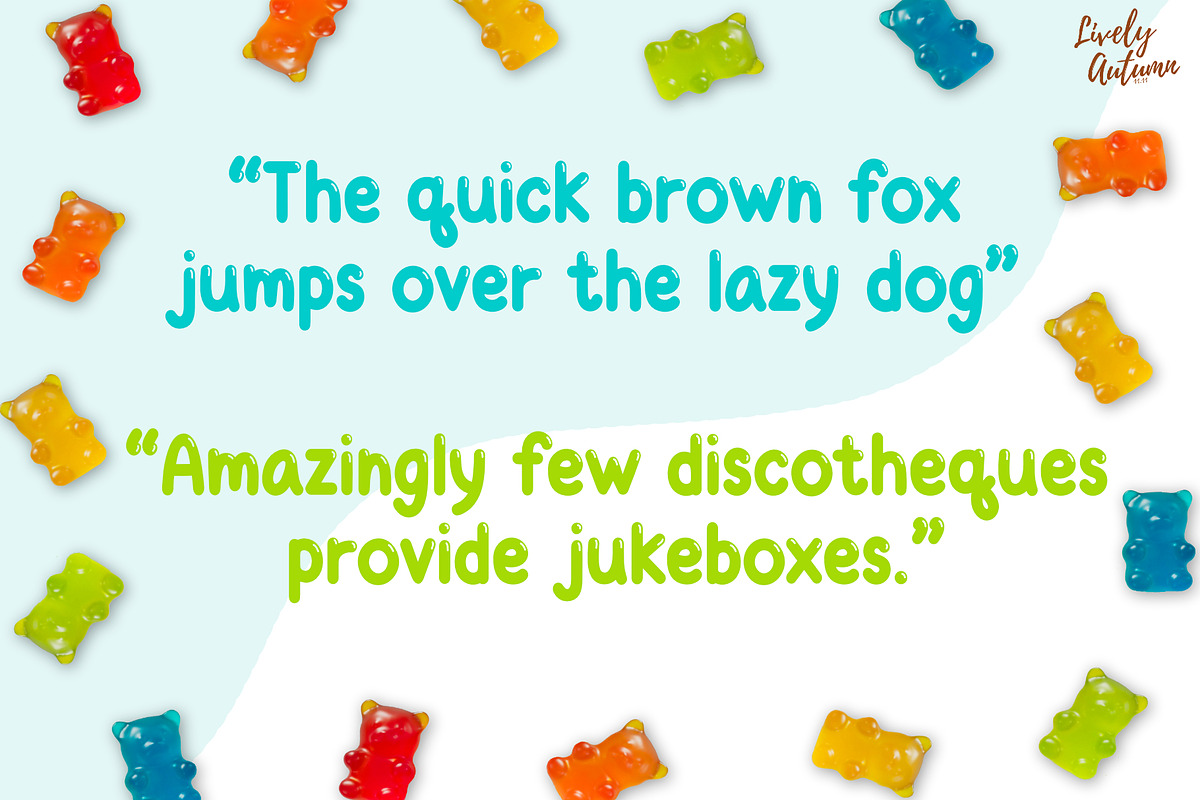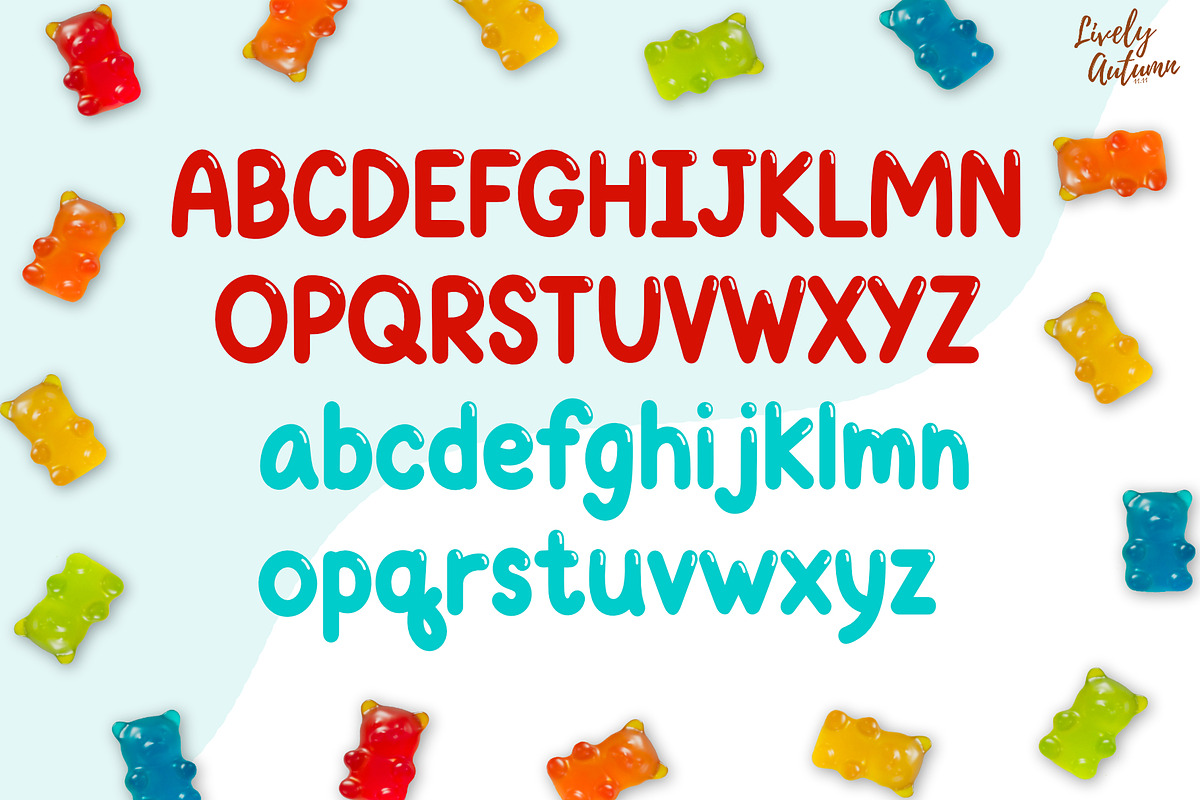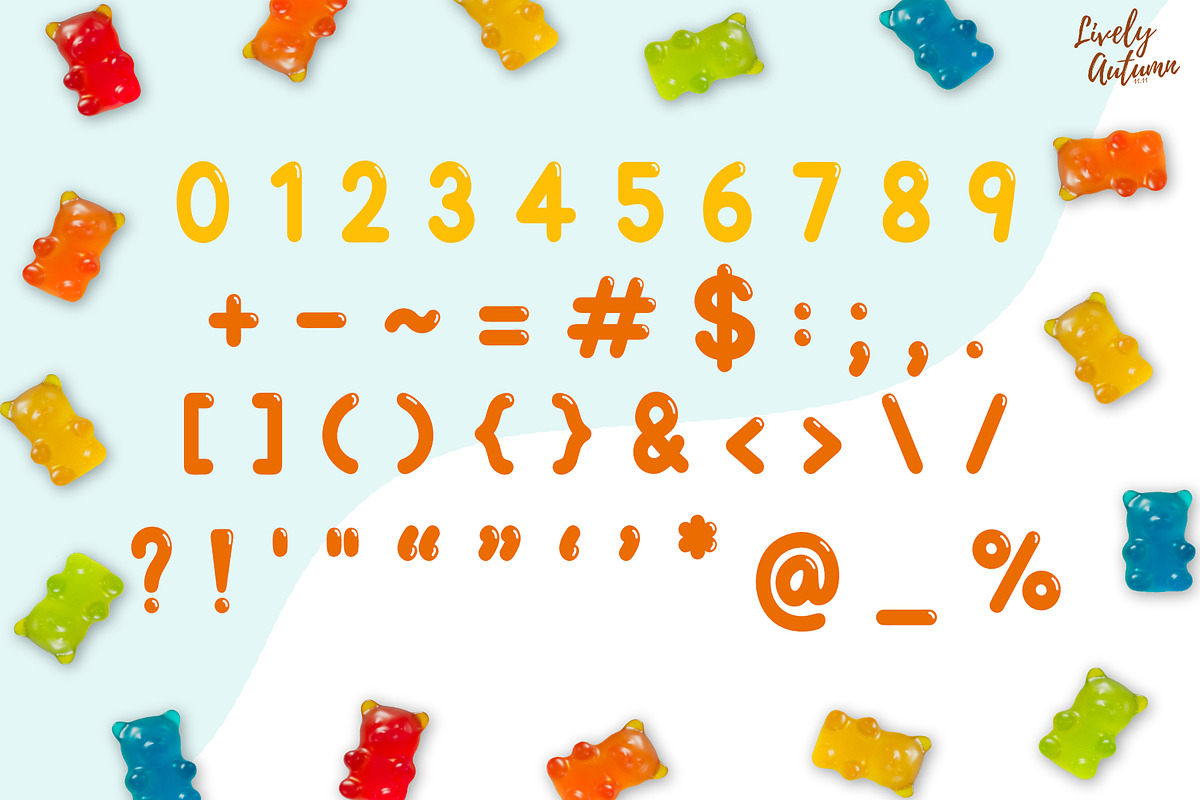
Jelly Font
Jelly is a simple, bold san serif handwriting font. Perfect for your cute-theme projects and various projects. From invitations to posters, social media graphics, journals, and much more.
• uppercase, lowercase, numbers, and symbols